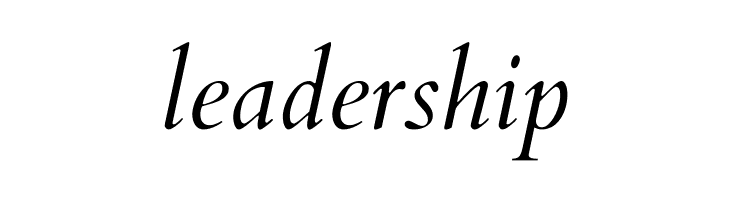
Cardo Bold Font
A classic serif font with elegant curves and strong presence.
Cardo Font
A classic serif font with elegant strokes and moderate contrast, ideal for traditional and scholarly texts.
Cardo Italic Font
An elegant serif font with a classic italic style and smooth, flowing lines.
A bold, flame-adorned decorative font ideal for impactful designs.
pf_pumpkin2 Font
A playful, pumpkin-themed decorative font ideal for festive designs.
pf_xmas_cat Font
A festive blackletter font with cat silhouettes in Santa hats.